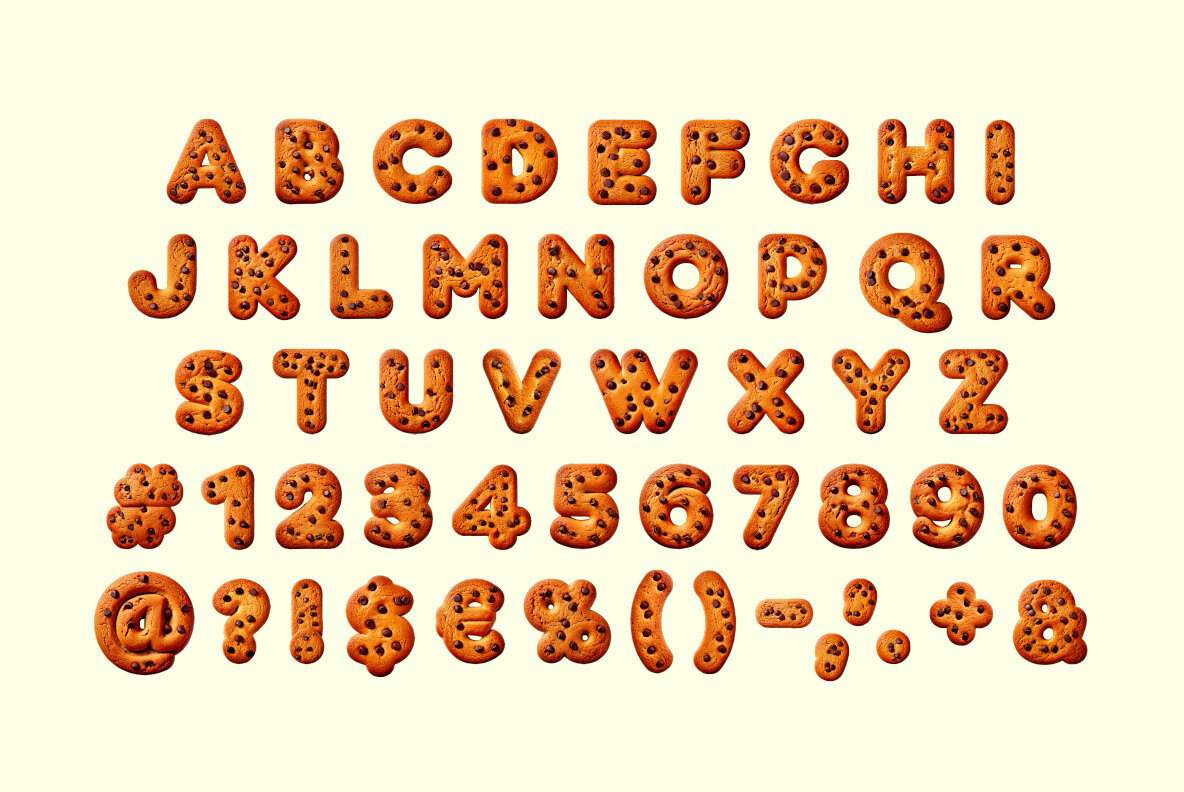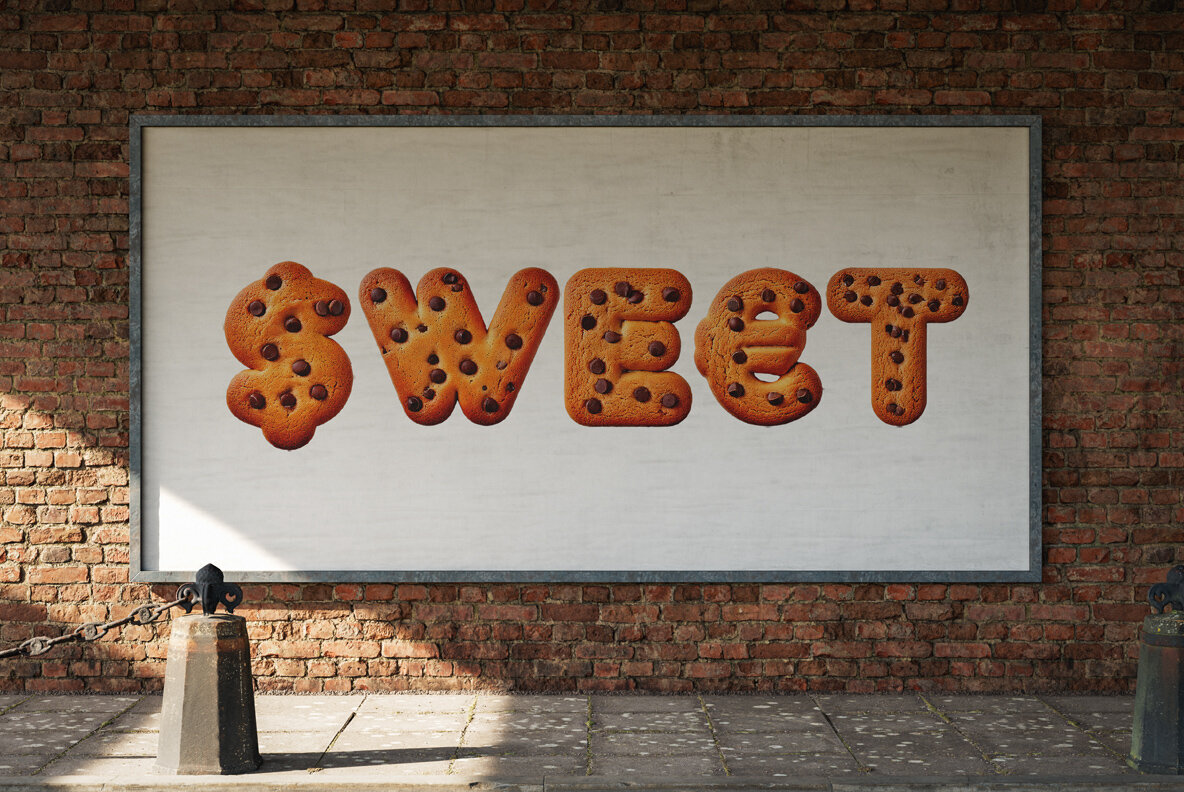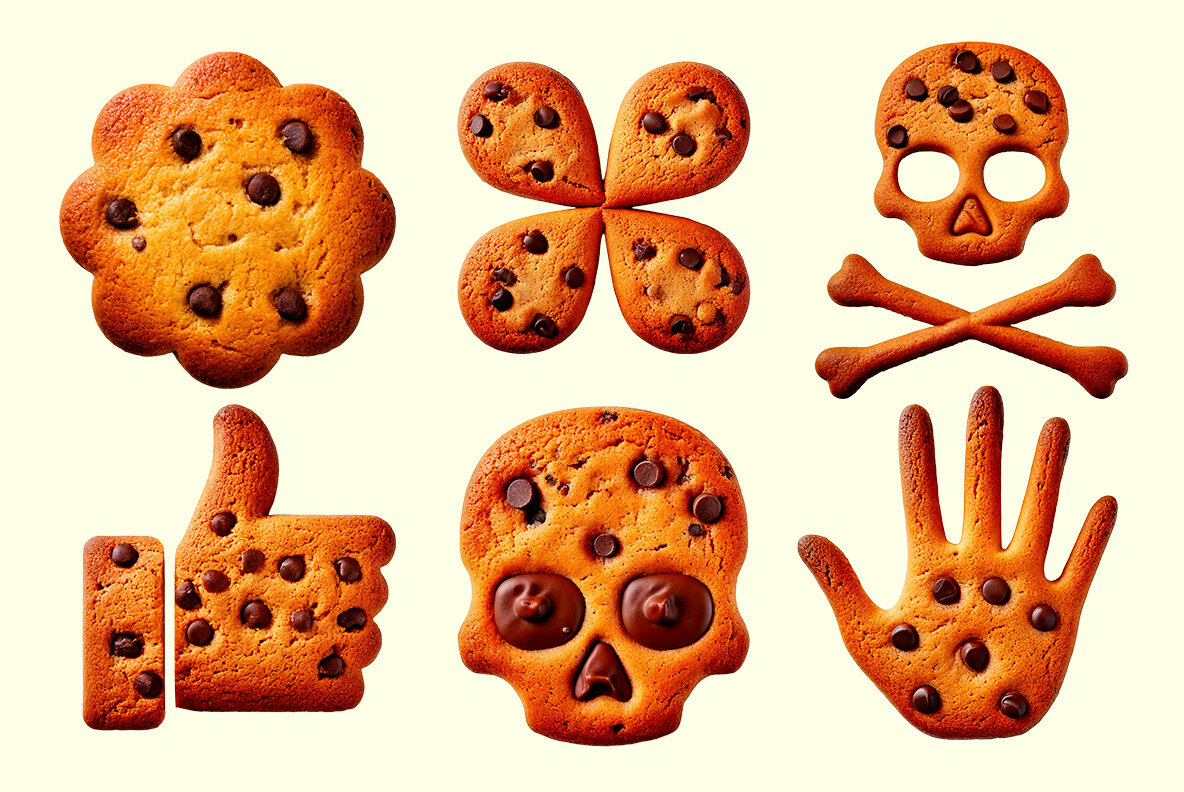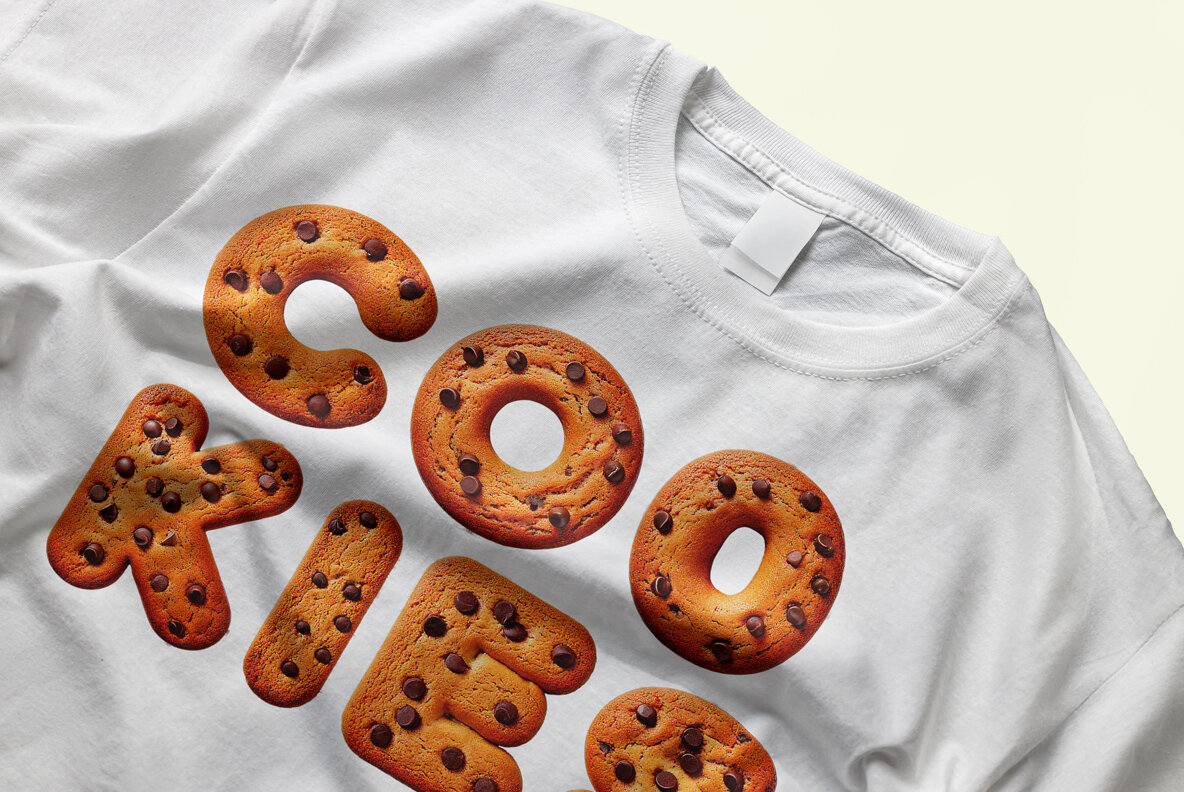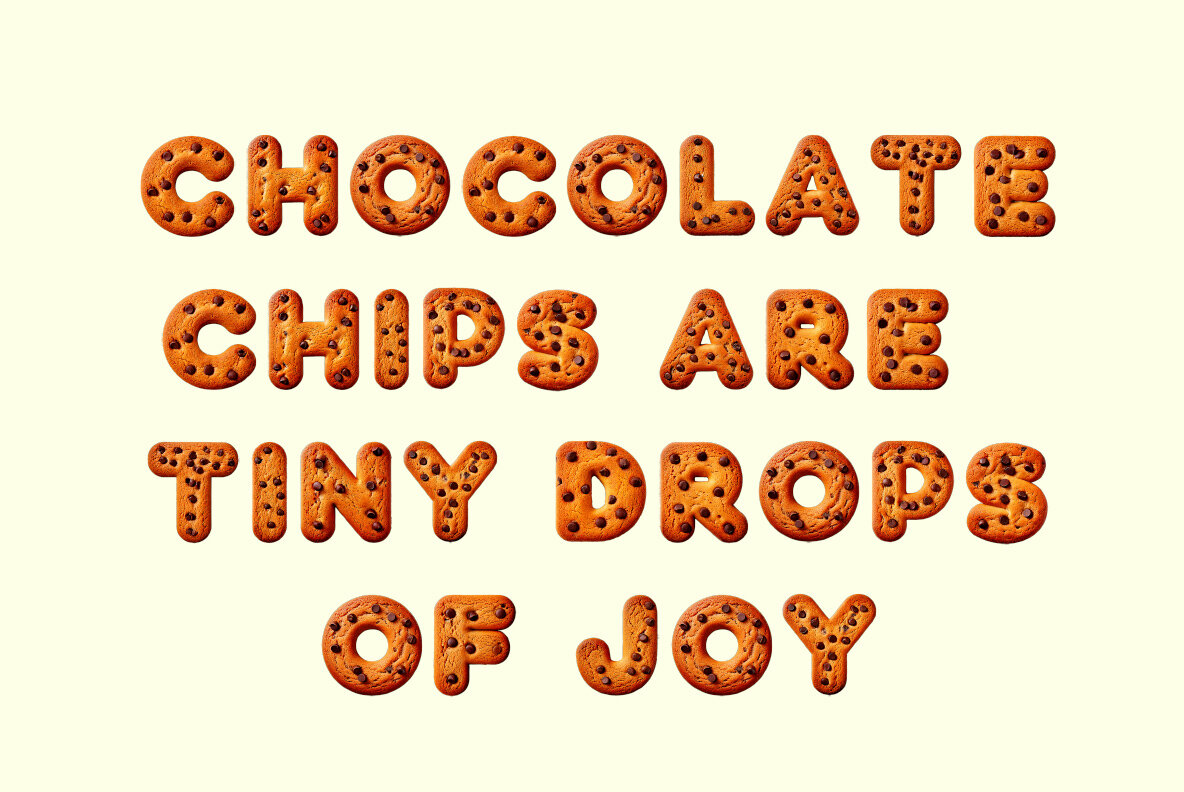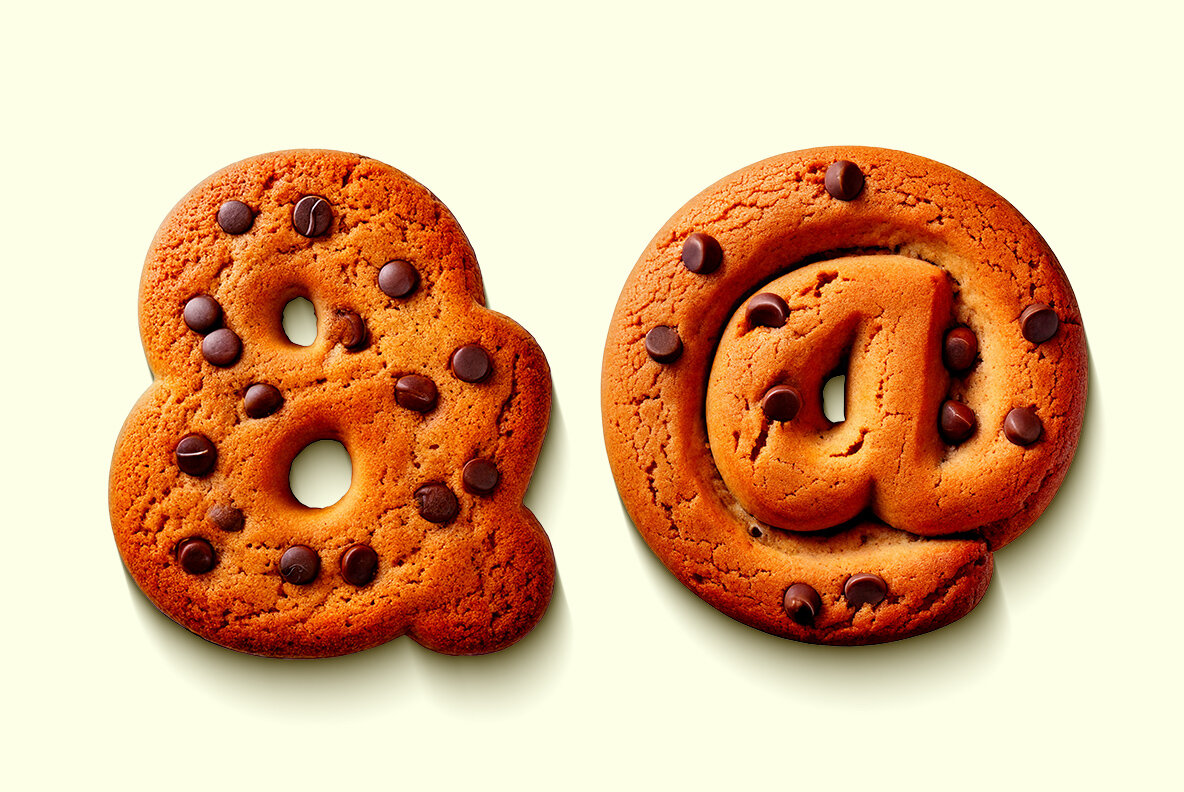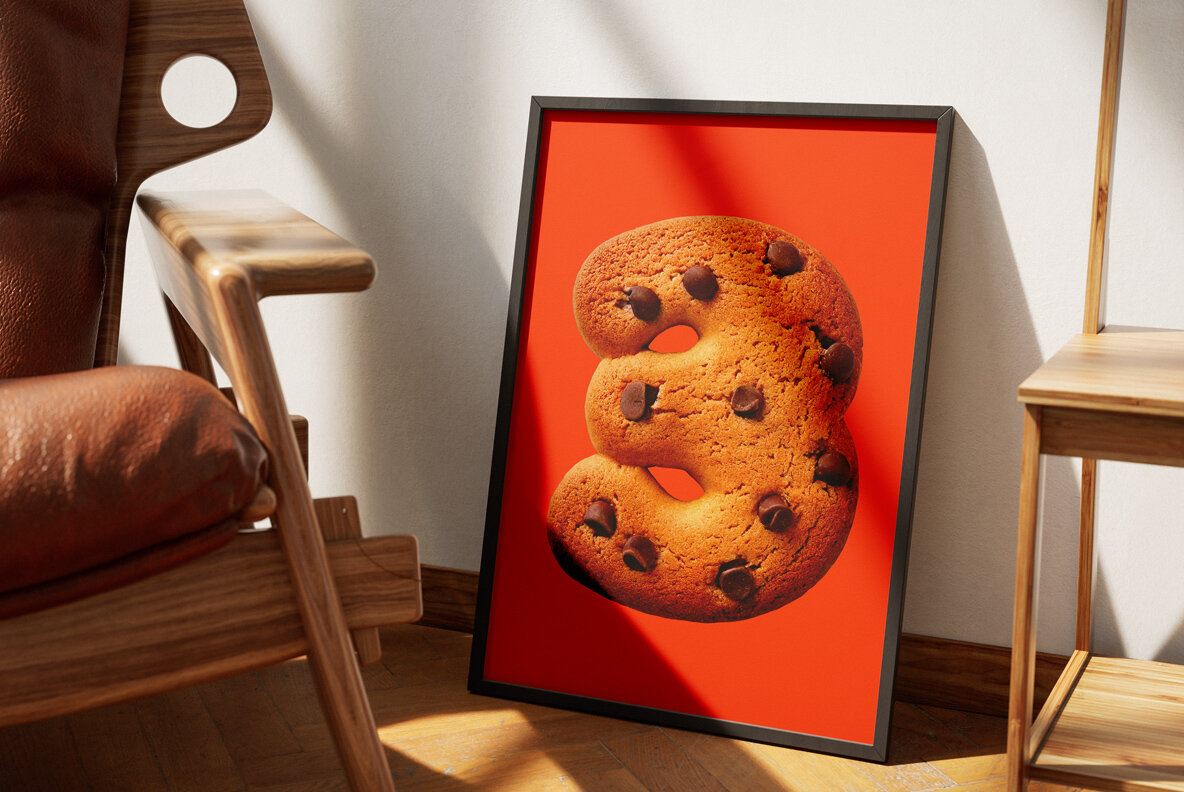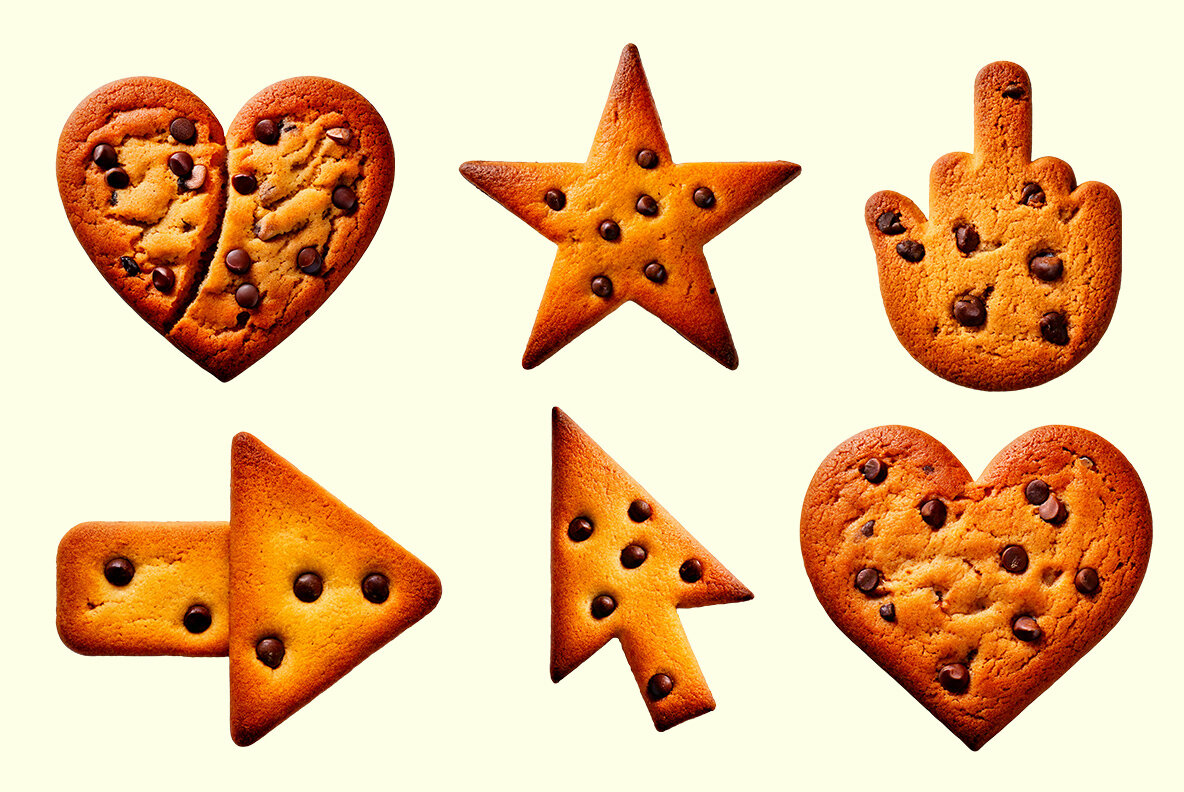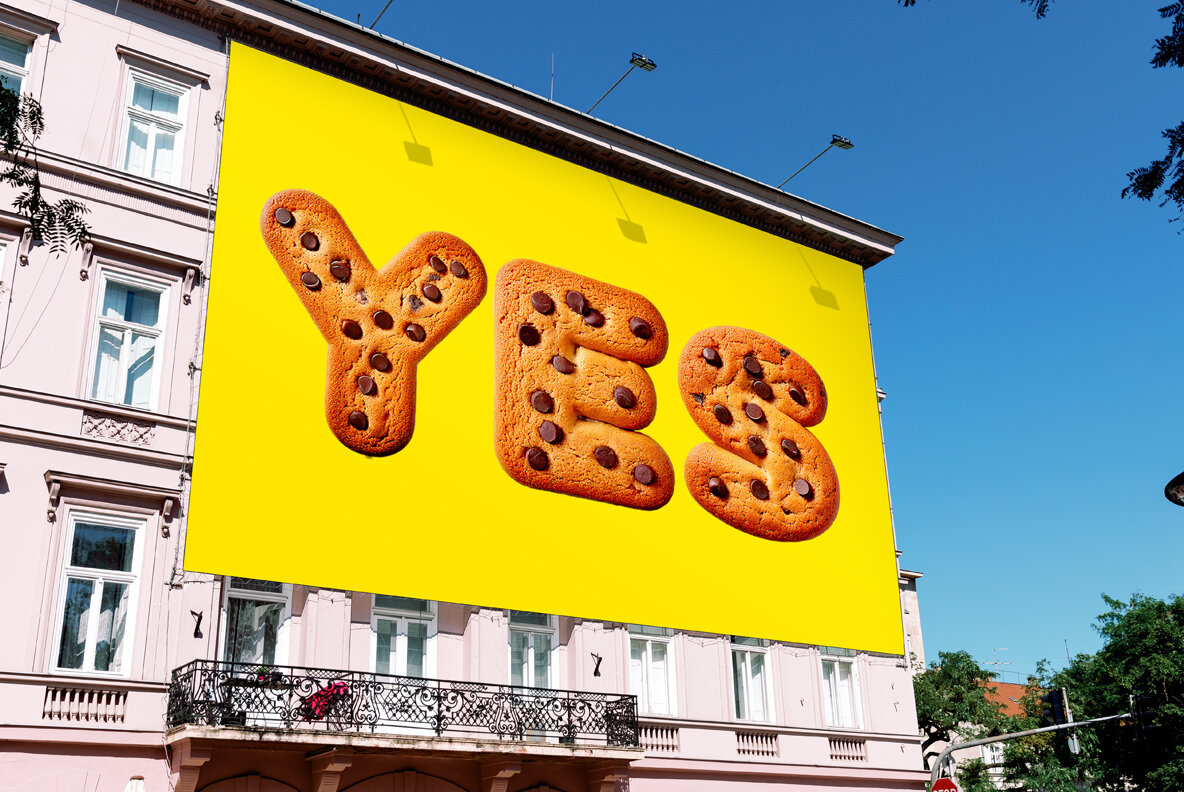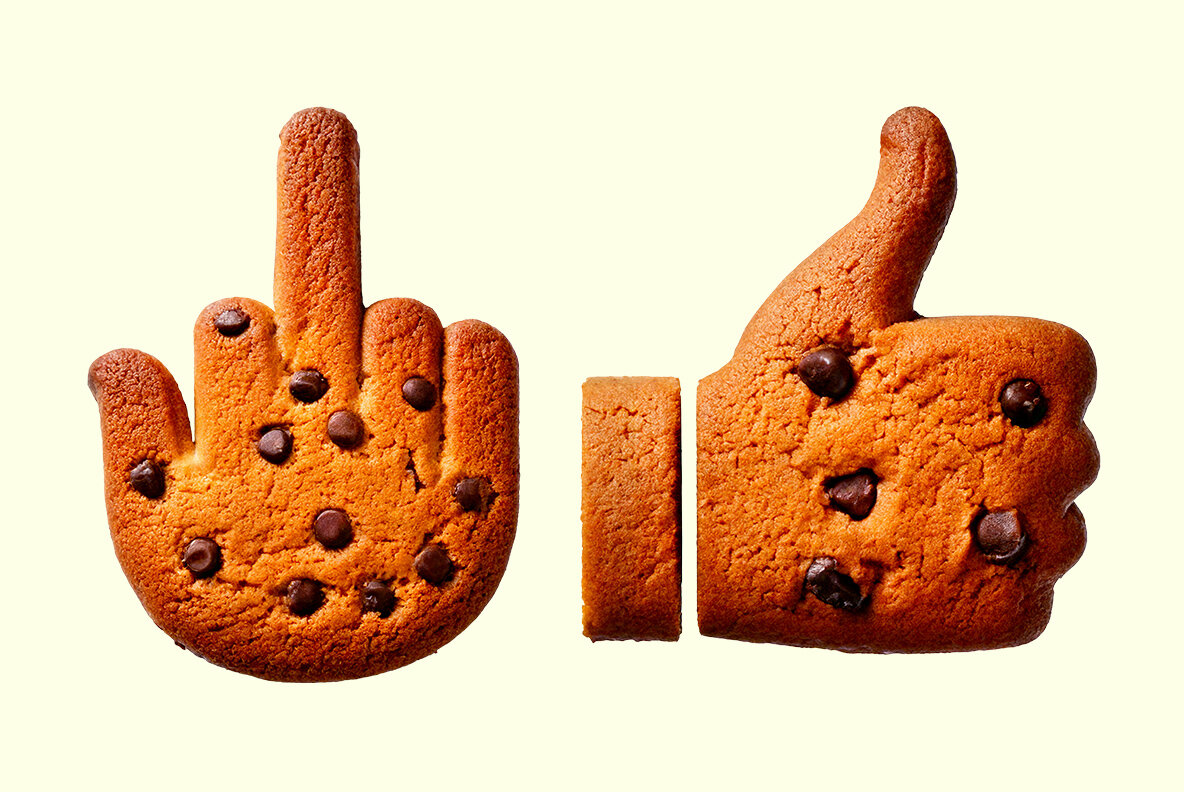
Choco Chunk Font
ChocoChunk Font tantalizes the senses by infusing your designs with the irresistible allure of freshly baked cookies. Each letter resembles a soft, golden-brown treat adorned with rich chocolate chips, creating a warm and playful visual experience. With its plump shapes and inviting tones, ChocoChunk brings a delectable twist to projects, making it ideal for branding bakeries, food blogs, or crafting attention-grabbing posters. Brace yourself for a visual feast, as this font adds charm and warmth to every creation.Indulge in ChocoChunk Font Delight
Delicious Features